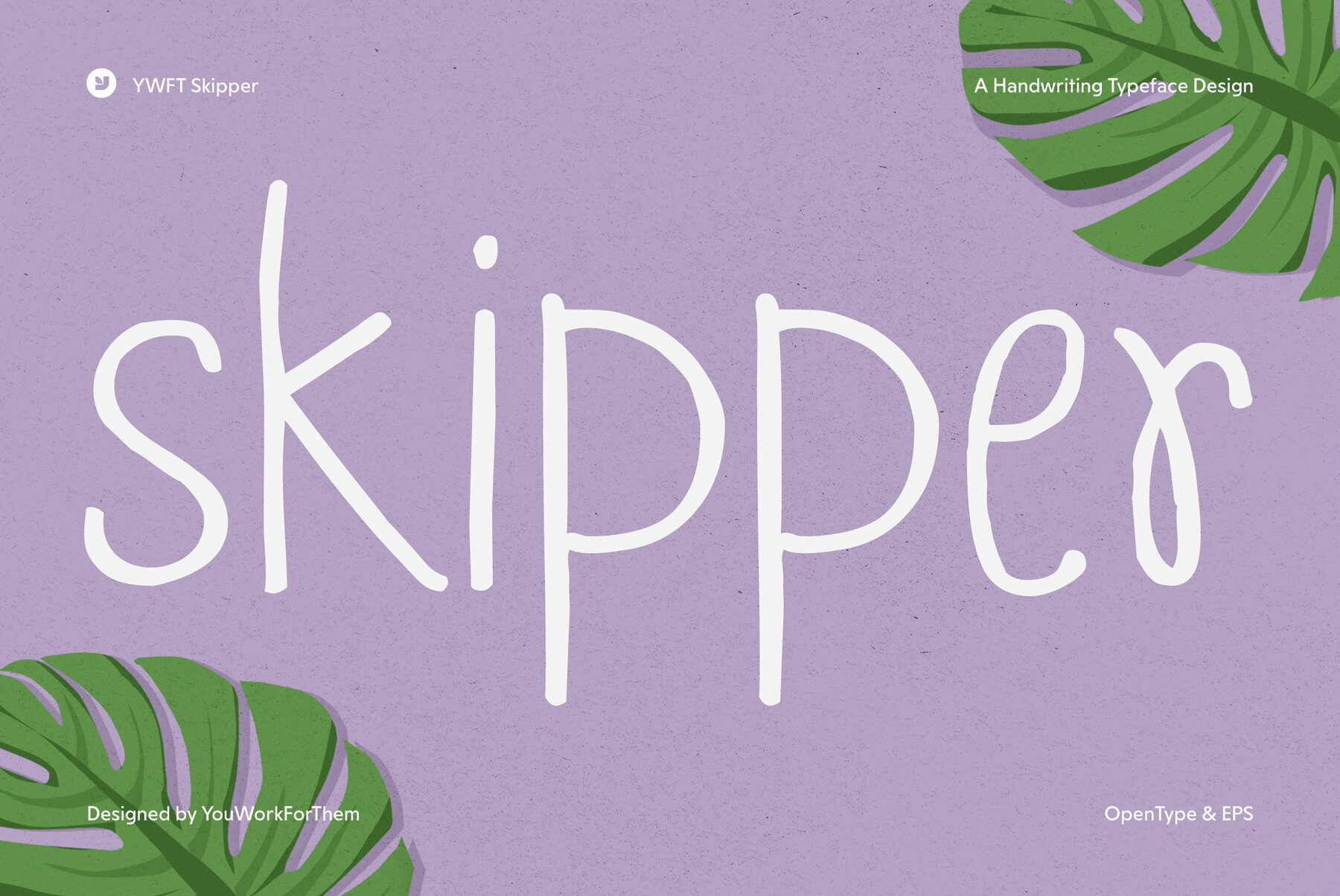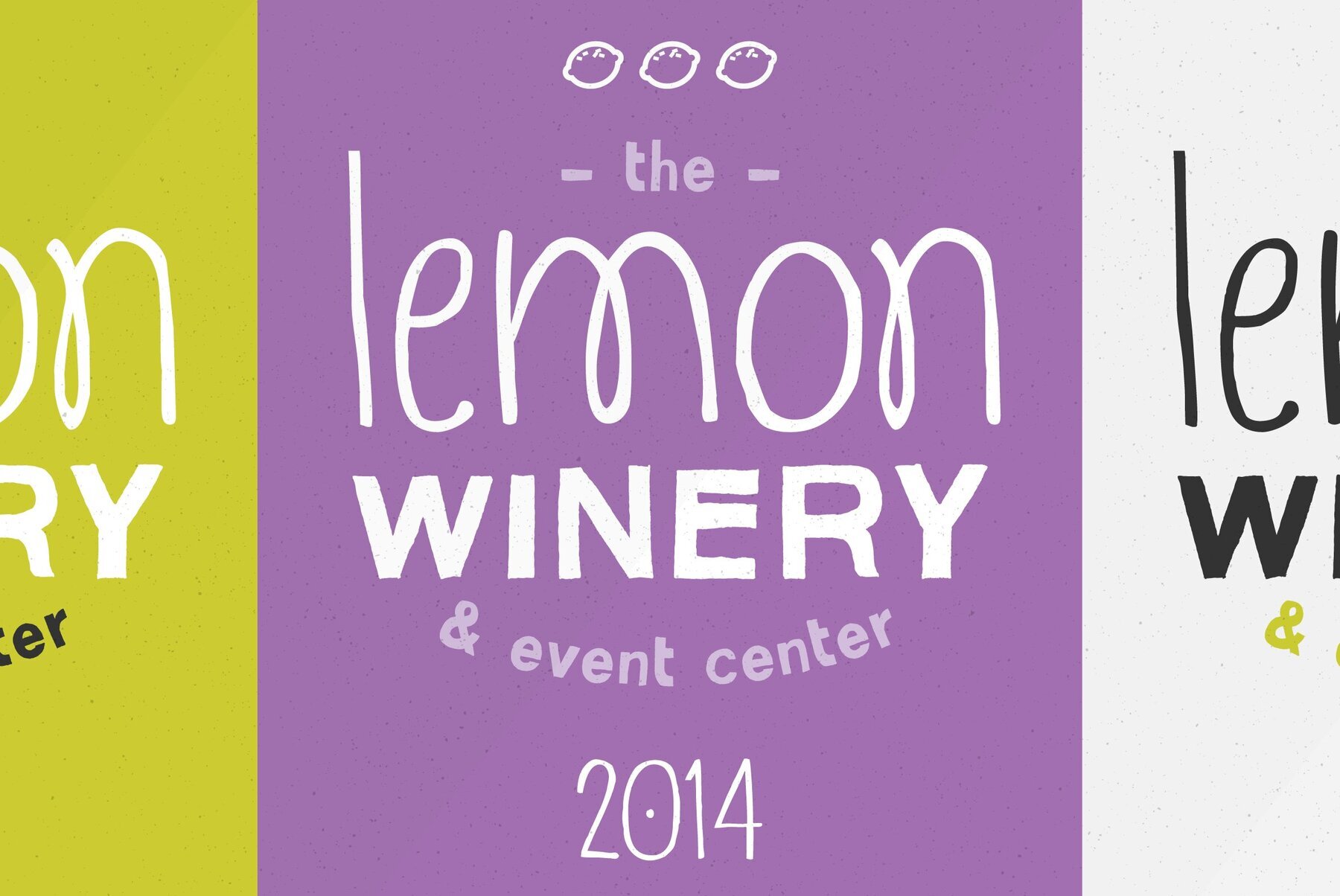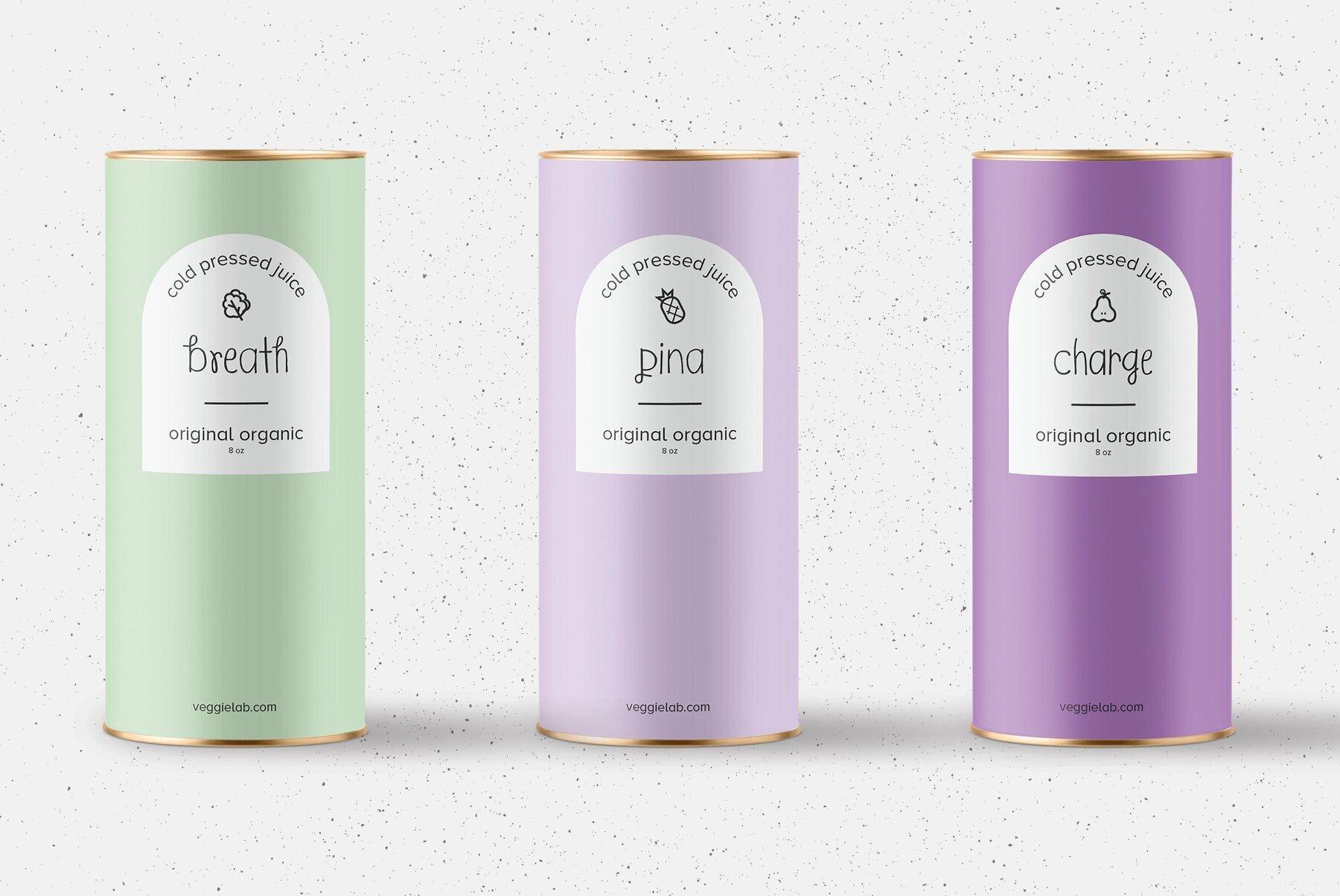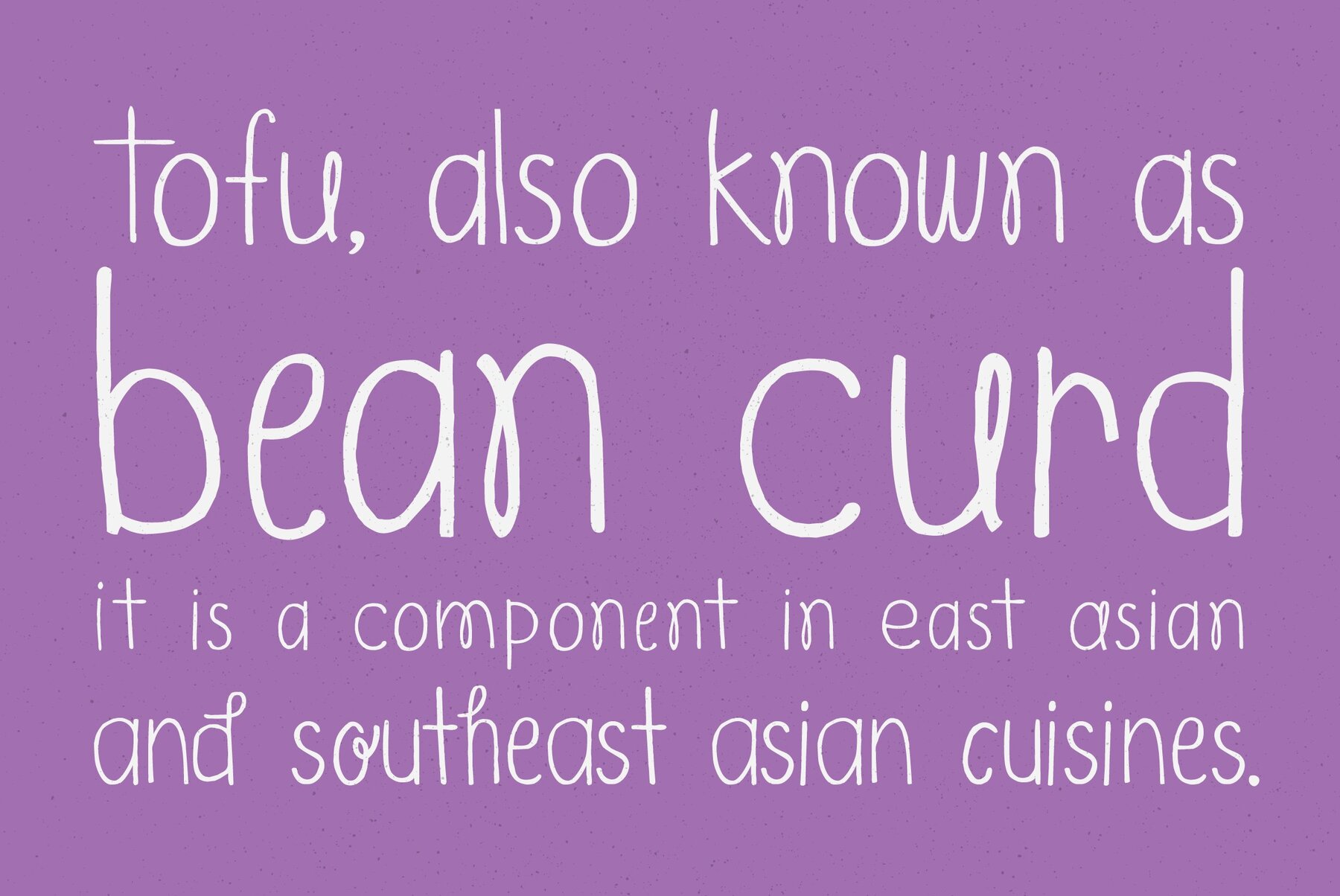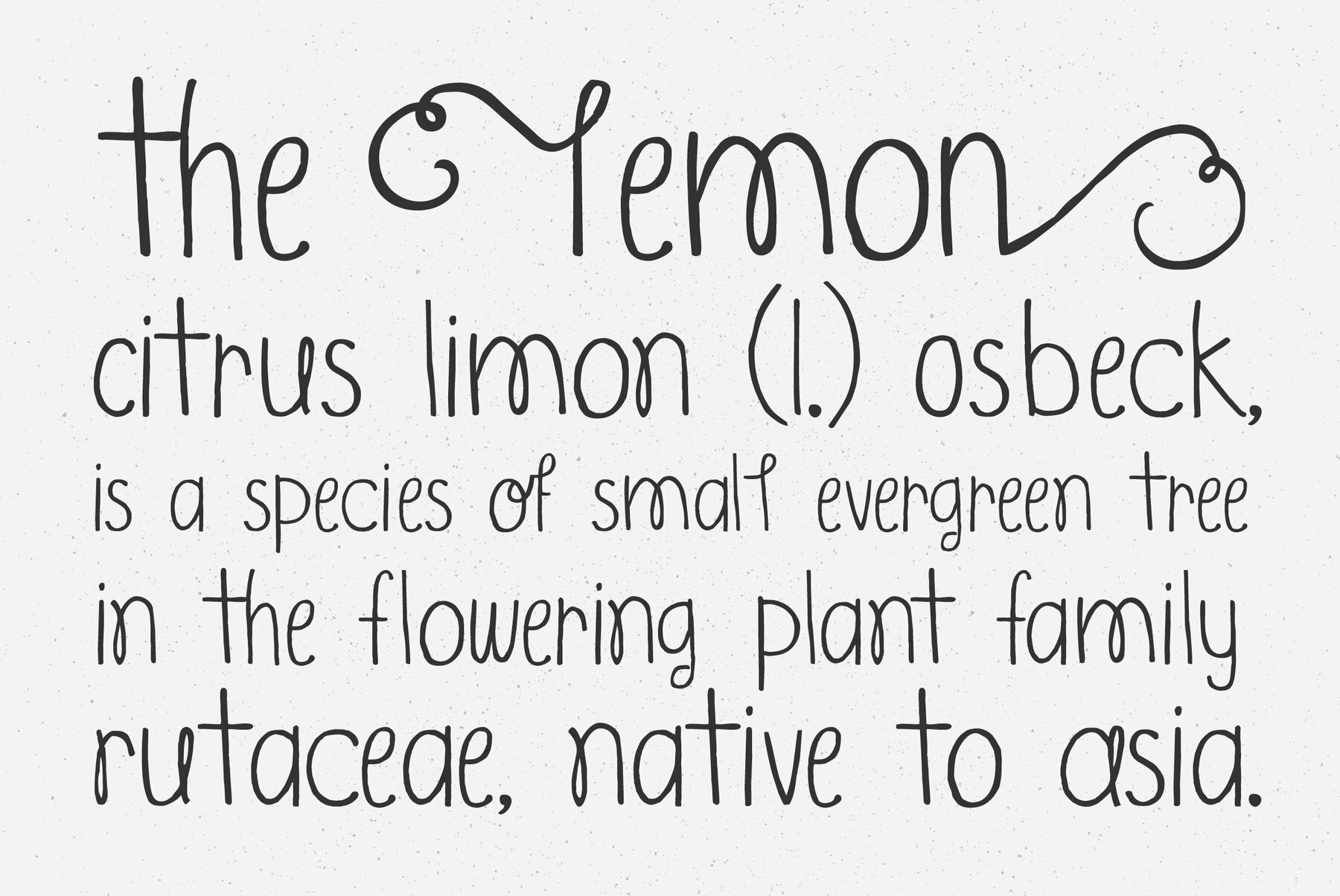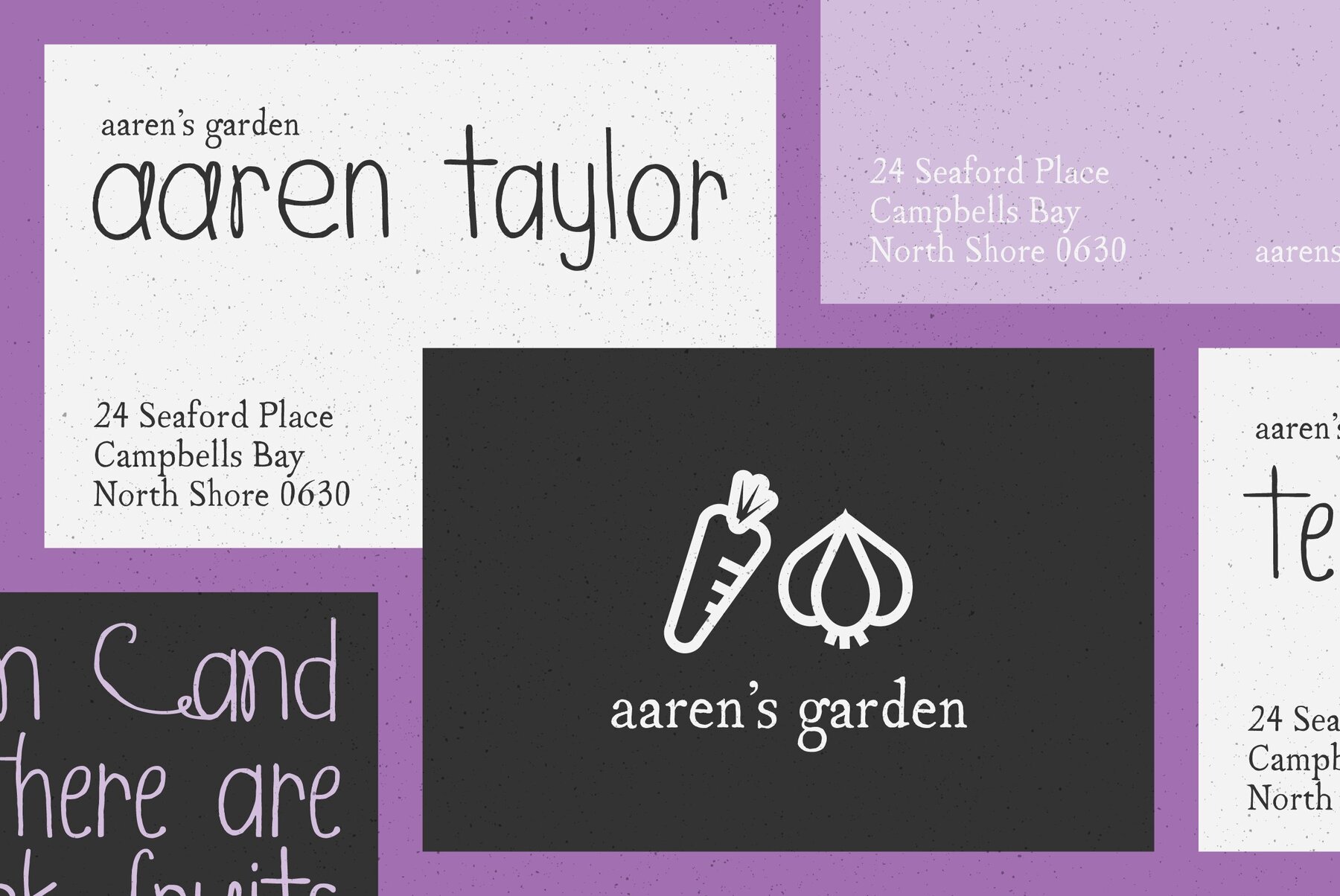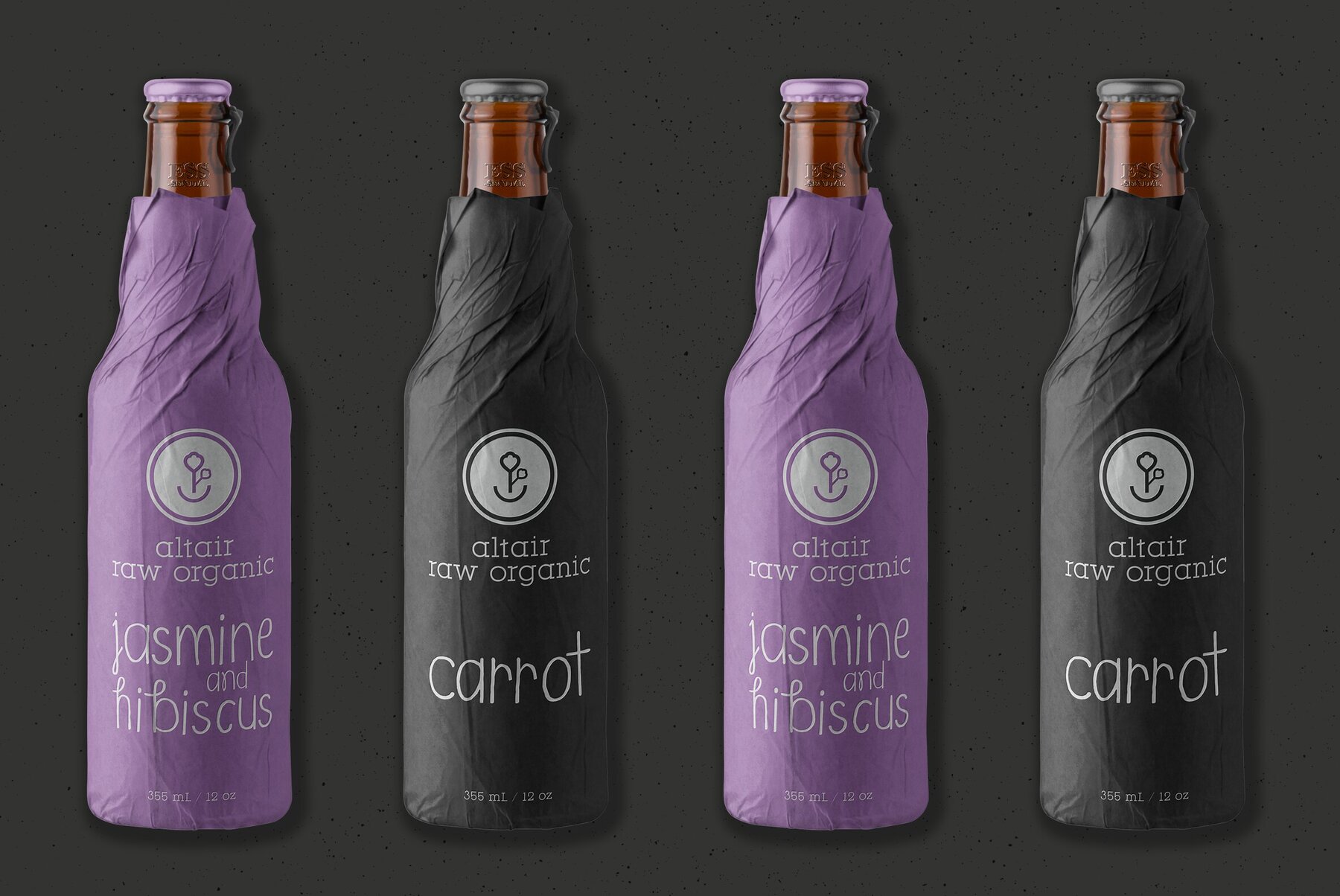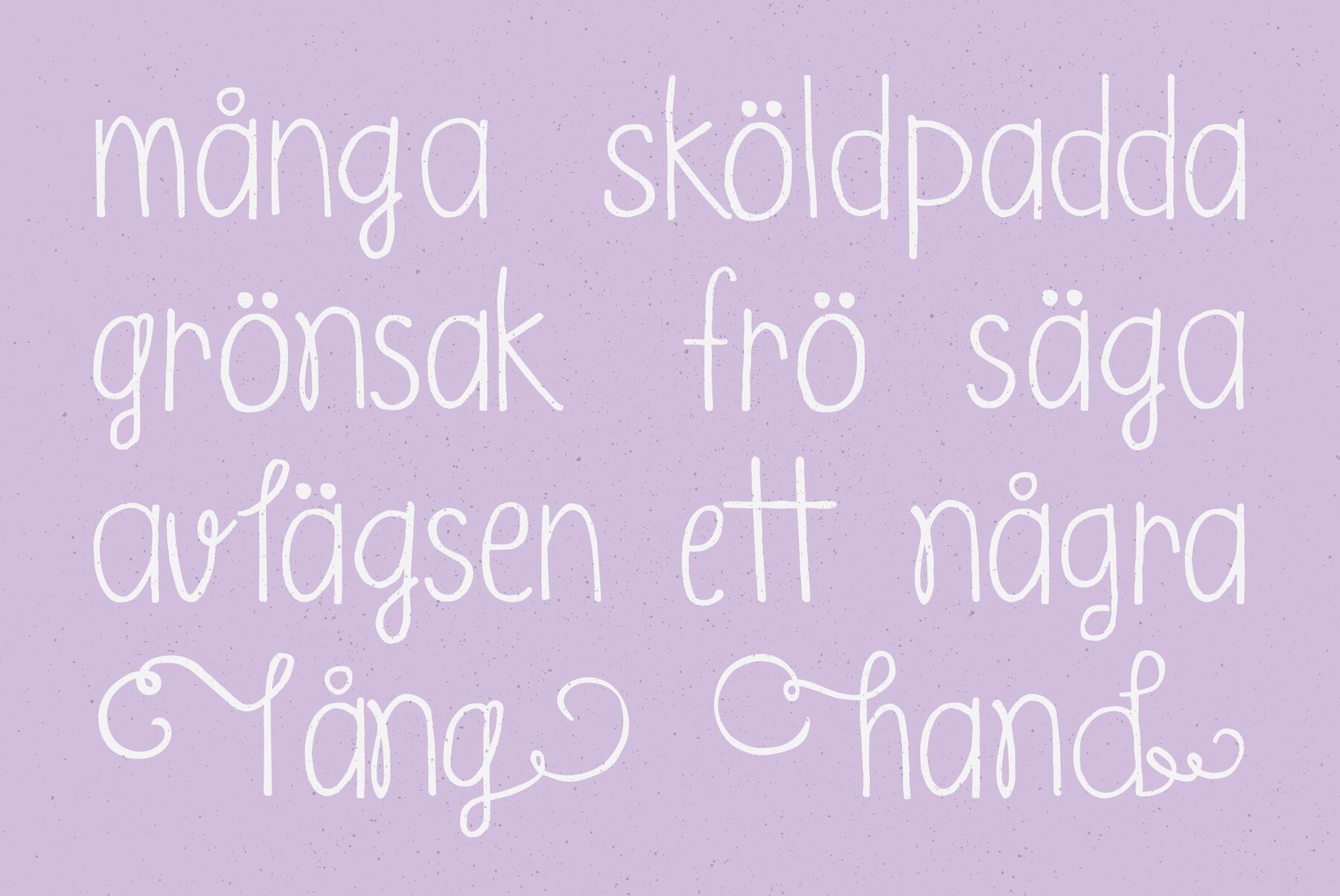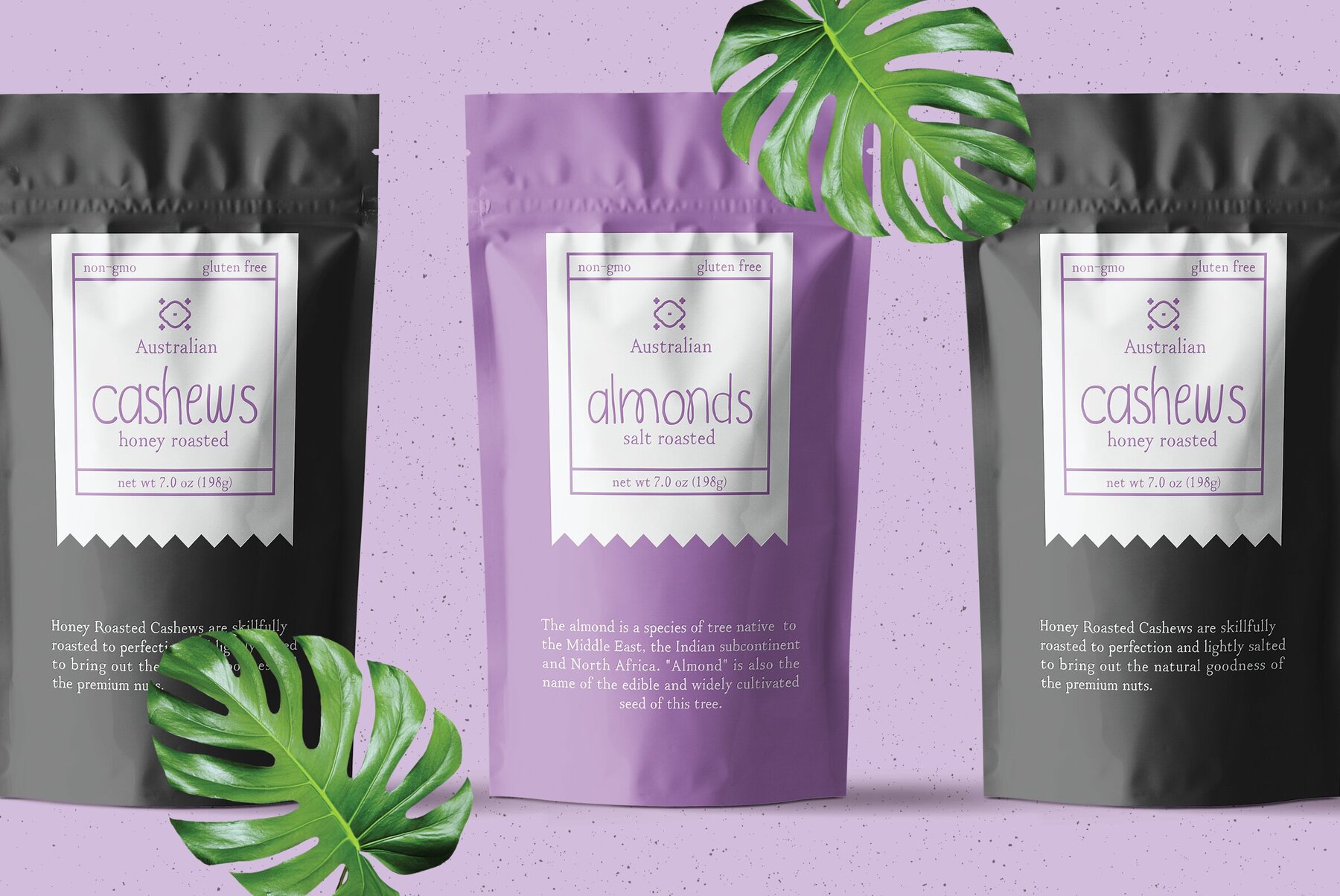
YWFT Skipper Font
Classy and carefully drawn, Skipper comes across a bit delicate, yet full of excitement–just like that note that your crush wrote you back in middle school, in which she asked you to buy her a bottle of strawberry wine. Skipper hops, skips and loops its way into perfect signage, branding and product label opportunities aplenty. Skipper comes loaded with OpenType features, as well we have included a FREE eps file (the handset) of the original drawings. These original drawings give you extra access to some characters not in the font.